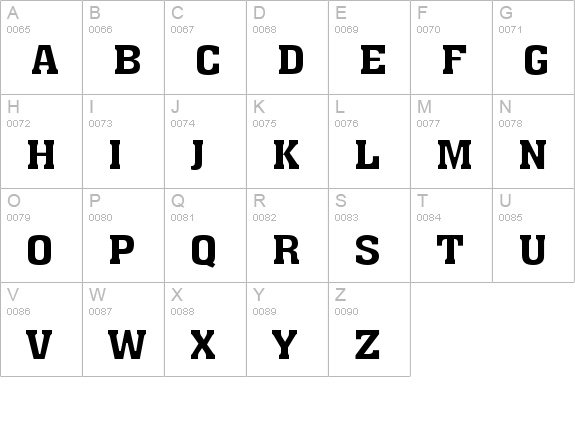
Ache Wide Normal Font Details
Ache Wide Normal is the standard, neutral, extended-width variant in the Ache typeface family \xE2\x80\x94 well suited to general body text, paragraphs, and standard typographic work.